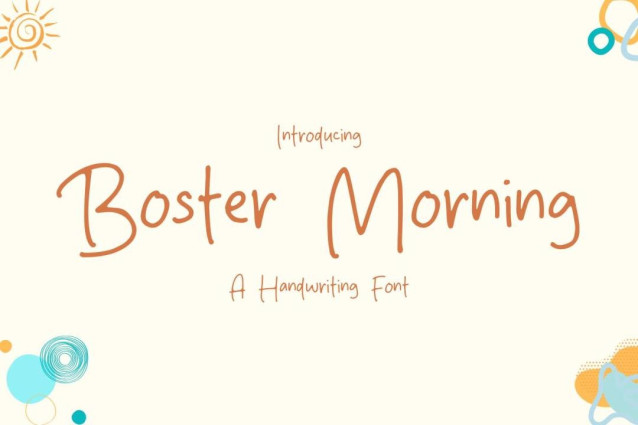
Boster Morning Font
Boster Morning Font is a simple and friendly handwritten font. Its natural and unique style makes it incredibly fitting to a large pool of designs. The only limit is your imagination!